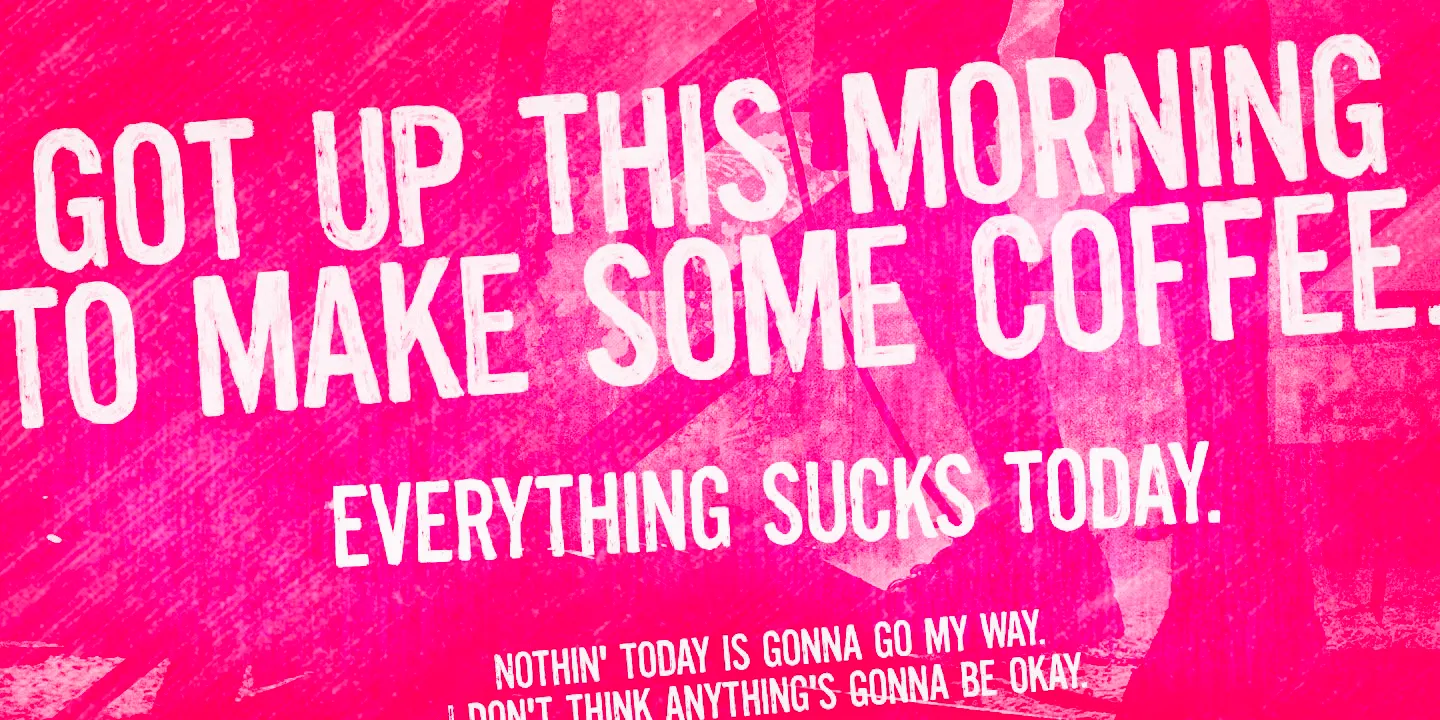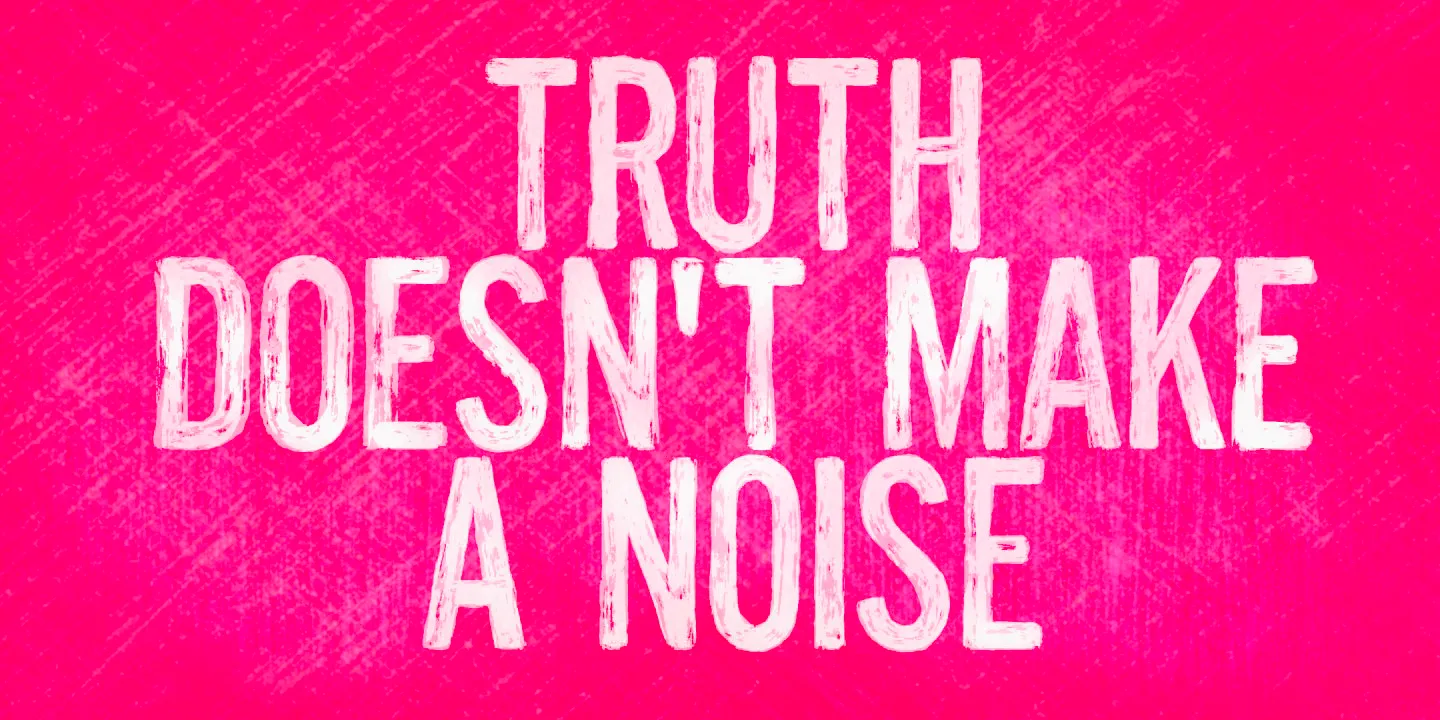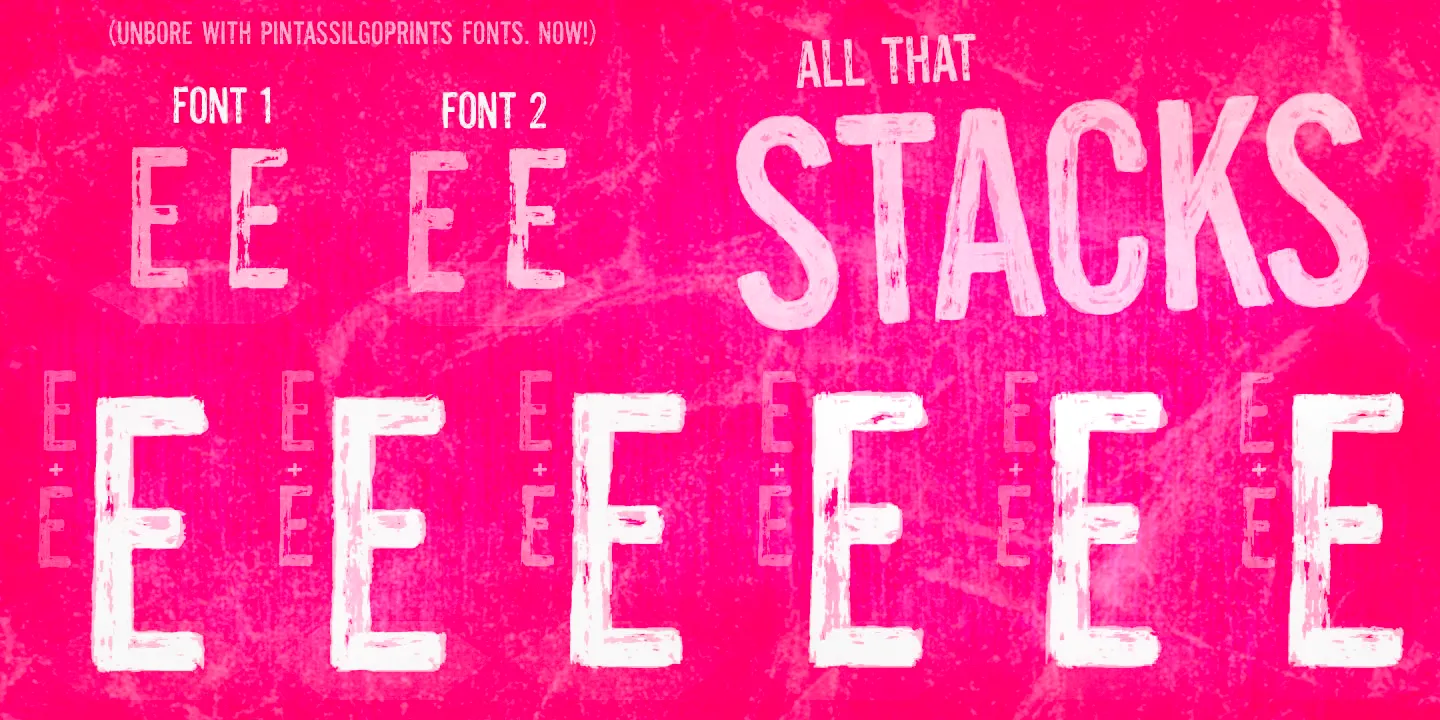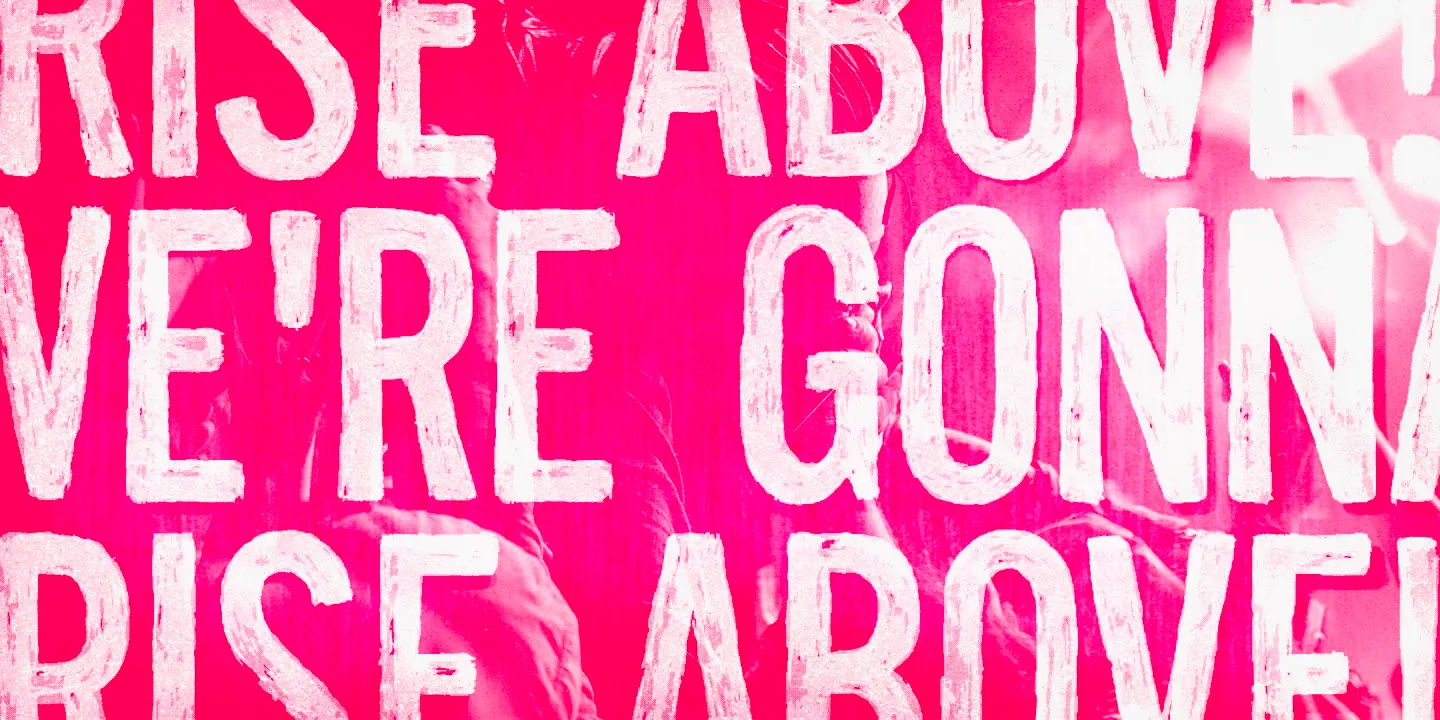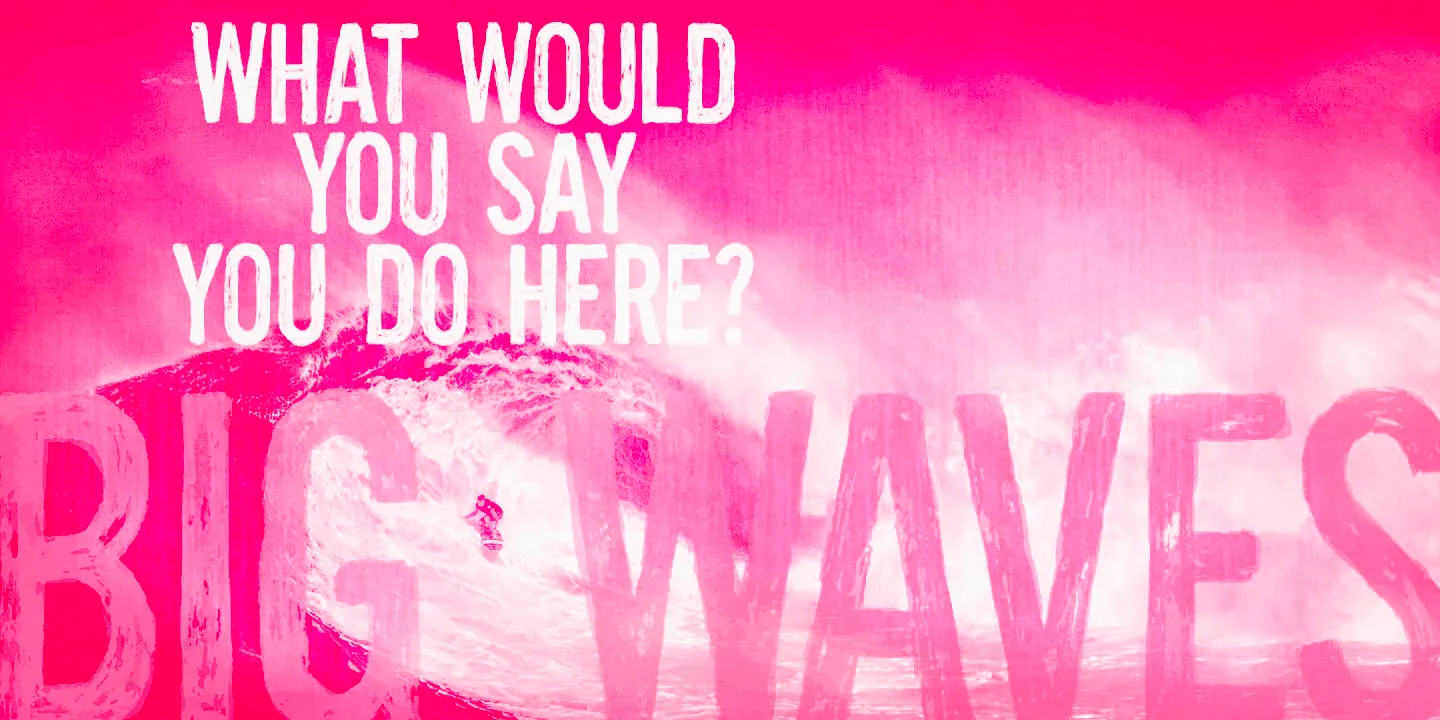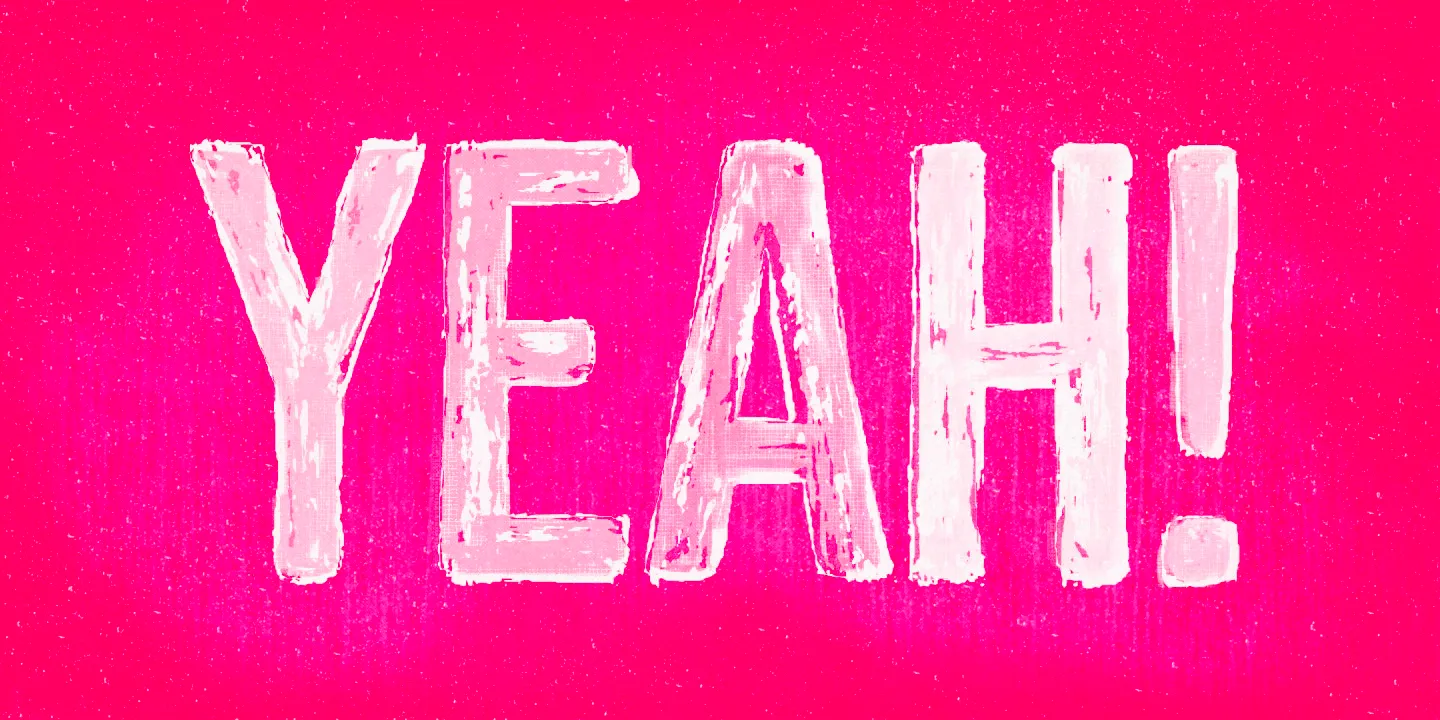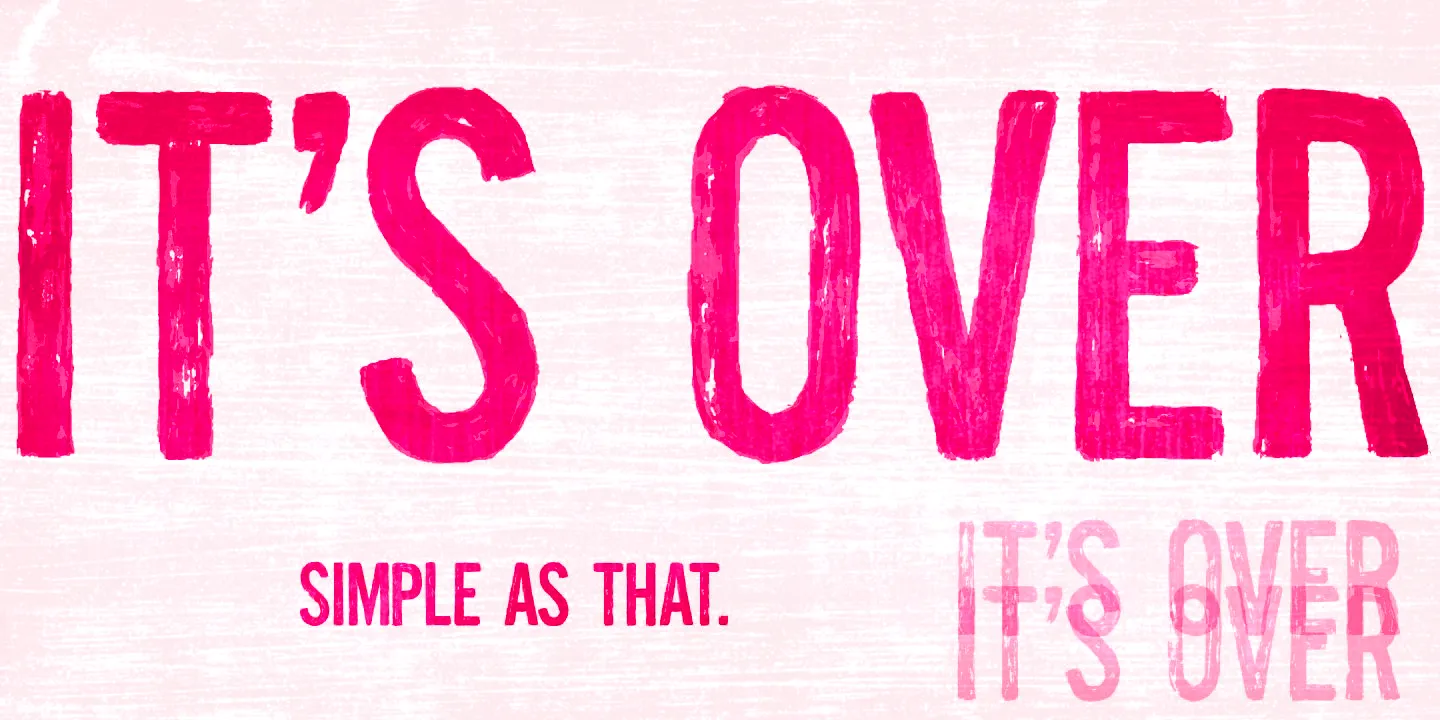
Unboring Font Family
• Unboring Regular
• Unboring Too
Unboring
Unboring is a textured, all-caps sans serif with the look of an old, hand-painted dry brush or the beautiful, faded signs on the sides of old buildings. It will surely bring your bland titles and tasteless chunks of text to life. This nifty stackable family features two fonts, both with two options for each letter. Pile them up and play with opacities for a killer superimposed effect. Add detail to posters, book covers, album art, multimedia brands, film titles, and more. Unboringness guaranteed!